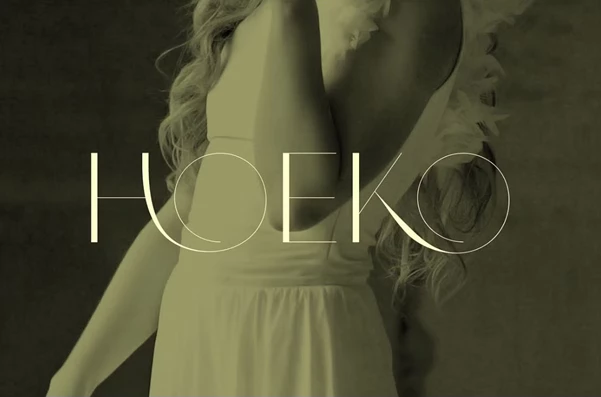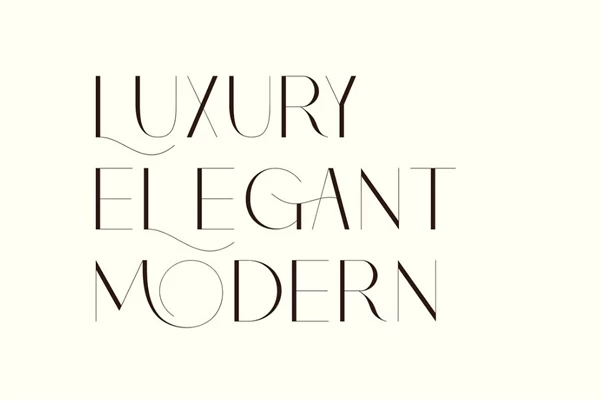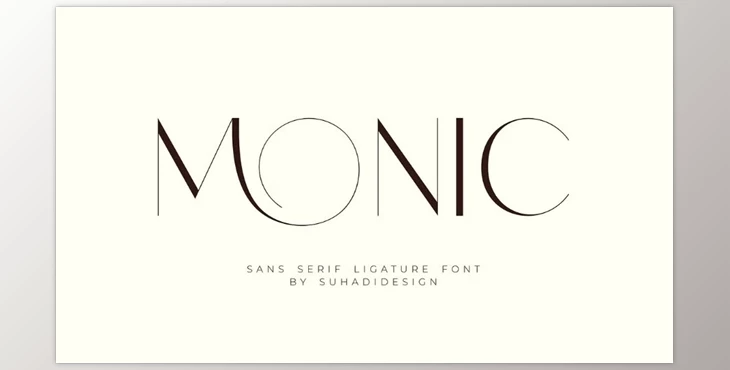
Monic Modern Ligature Font:
Monic is a newly popularized modern ligature font, which is a sans-serif font with a streamlined appearance and has a certain beauty that appeals to women and men alike. This font stands out with its beautiful design, including some ligatures which make it more unique. This monitor is stunning and is suitable for many purposes, including cosmetics, beauty, branding, logos, wordmarks, magazines, etc. It can be used on various platforms like business cards, social media, and much more, which makes it one of the most stylish and versatile fonts available.
Some great features of Monic Modern Ligature Font:
- All Caps
- Ligatures Inclusion
- Fonts for All Languages
- Numerical Glyphs
- Symbols